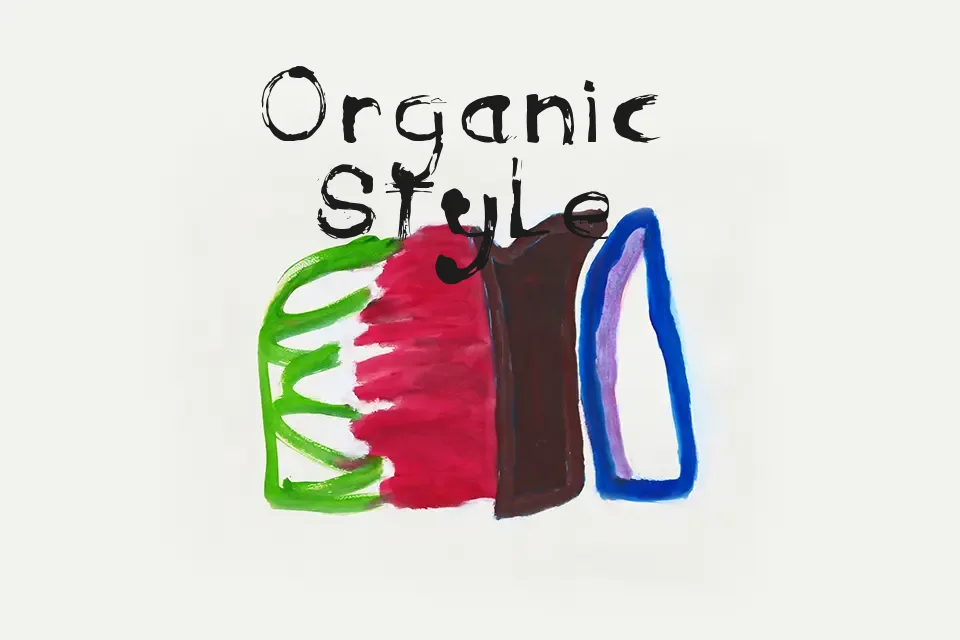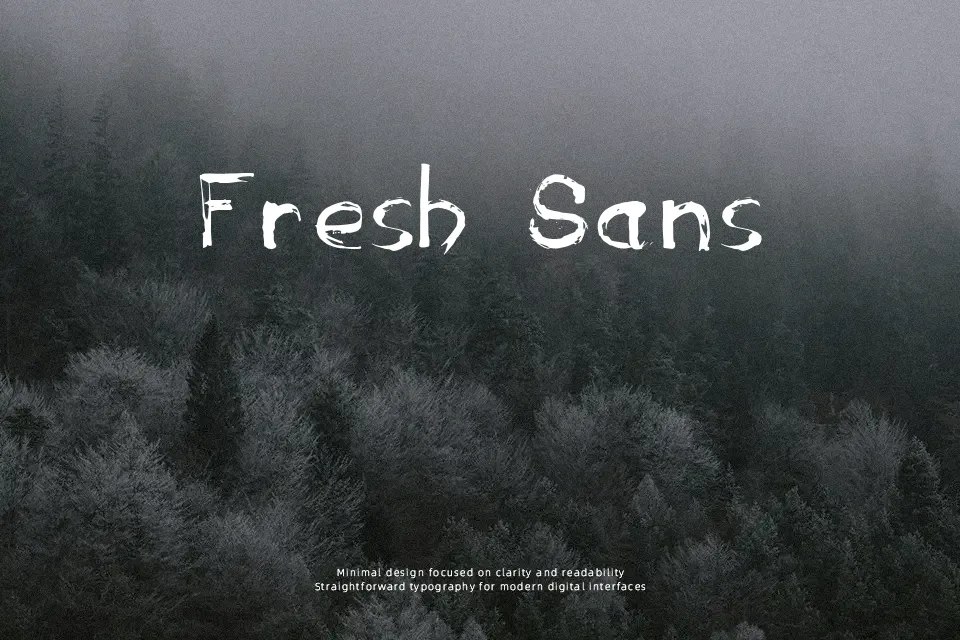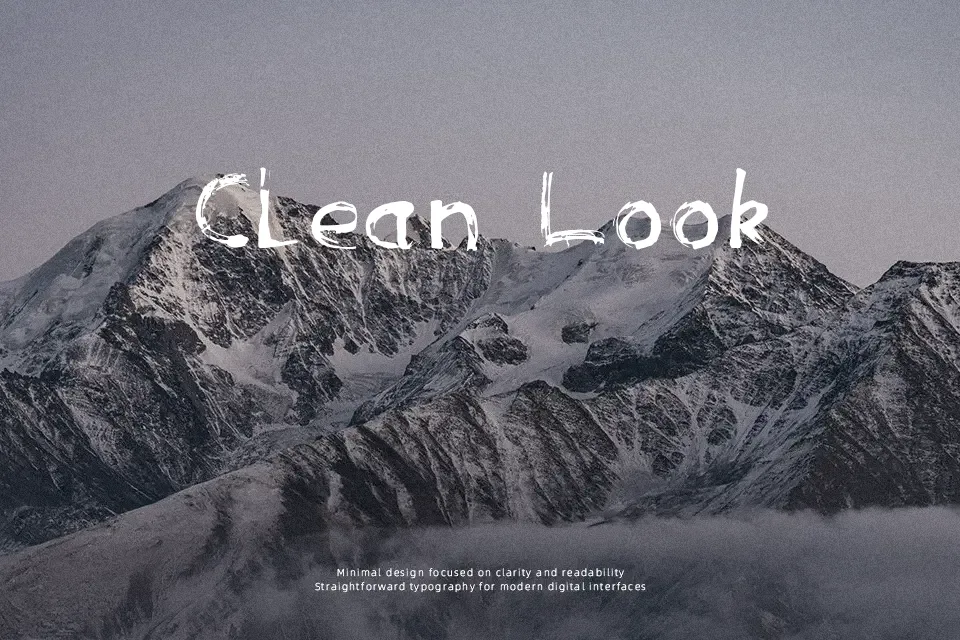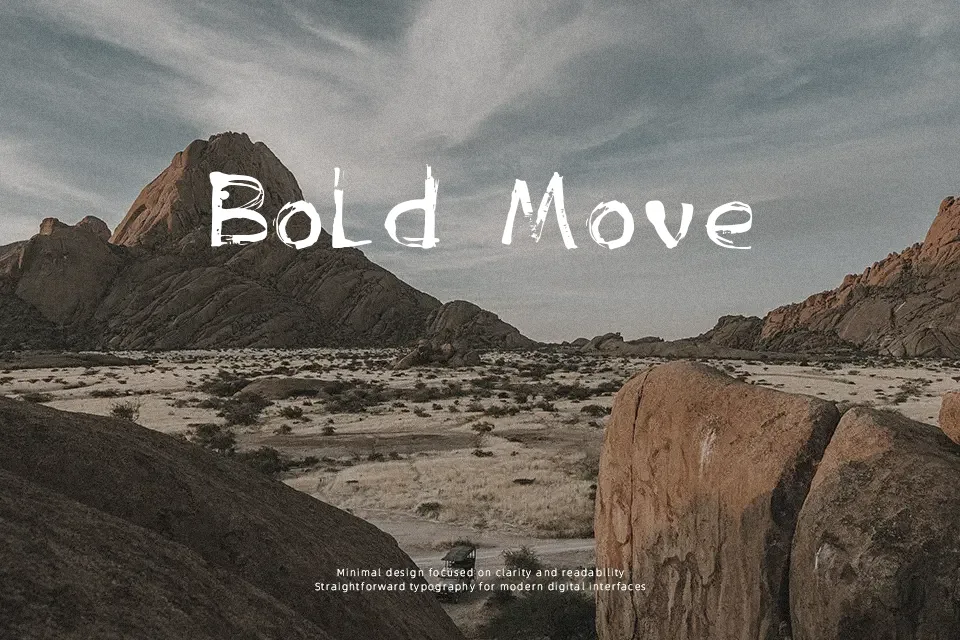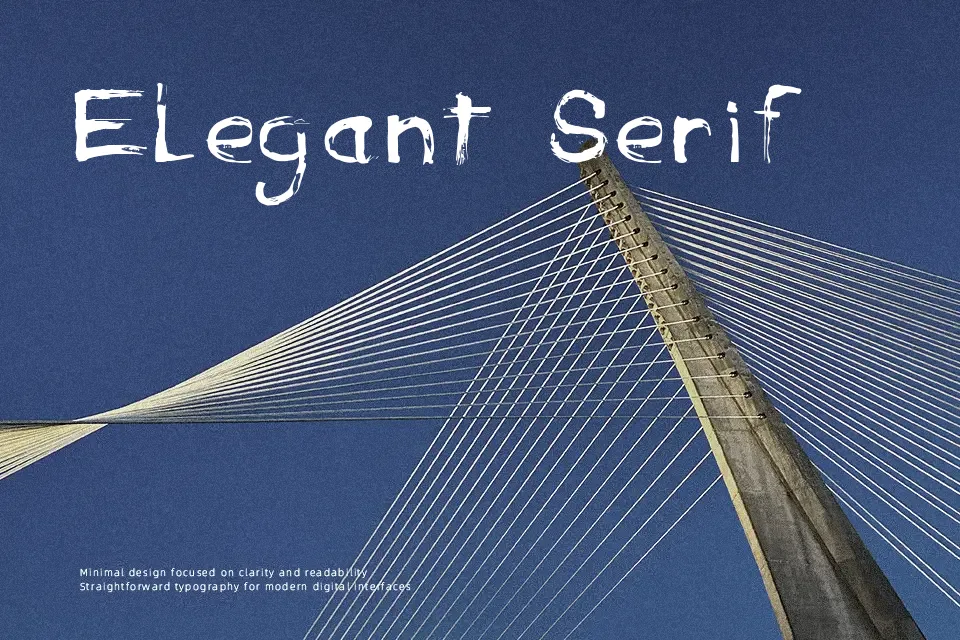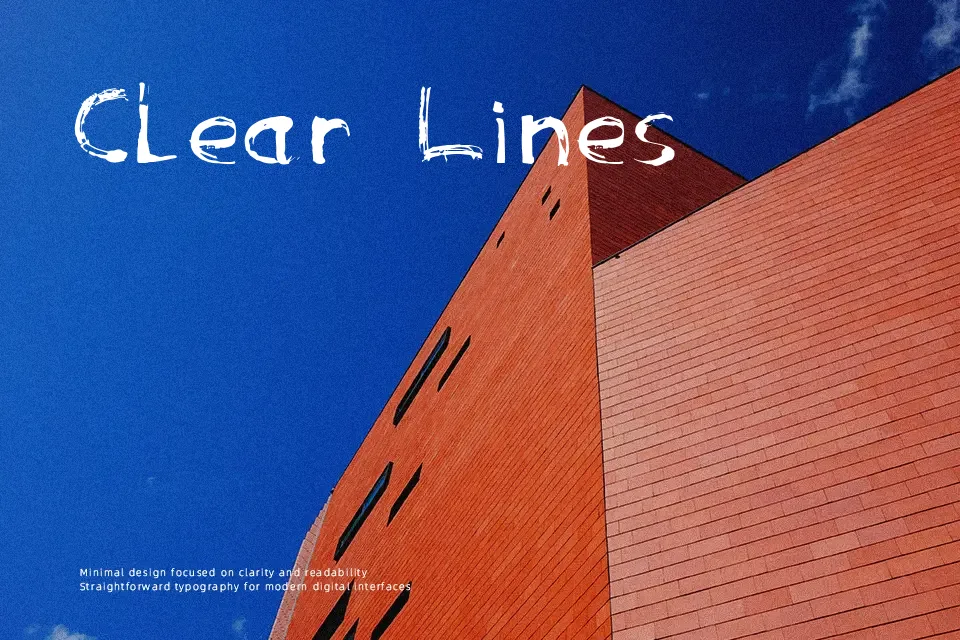
Anarchy Font
Designed by Swaffer
If you are looking to create a design that looks like it was scratched onto a brick wall, Anarchy Font does the heavy lifting. The creator actually fashioned a custom pen out of a soda can to draw these letters, resulting in an unpredictable, frayed texture with inconsistent stroke weights. The aesthetic is loud, aggressive, and decidedly unpolished. It excels when used for large, impactful headlines where its rough edges can be fully appreciated—like a metal band’s tour merchandise or a gritty horror movie title. However, the chaotic nature of the letters means it completely fails if you try to use it for body paragraphs or anything that requires quick, effortless reading.
– Streetwear brand logos
– Punk rock album covers
– Underground event flyers
– Body text in magazines
– Clean corporate branding
– User interface menus
Perfect for headline, music, and poster, with a bold and decorative style.